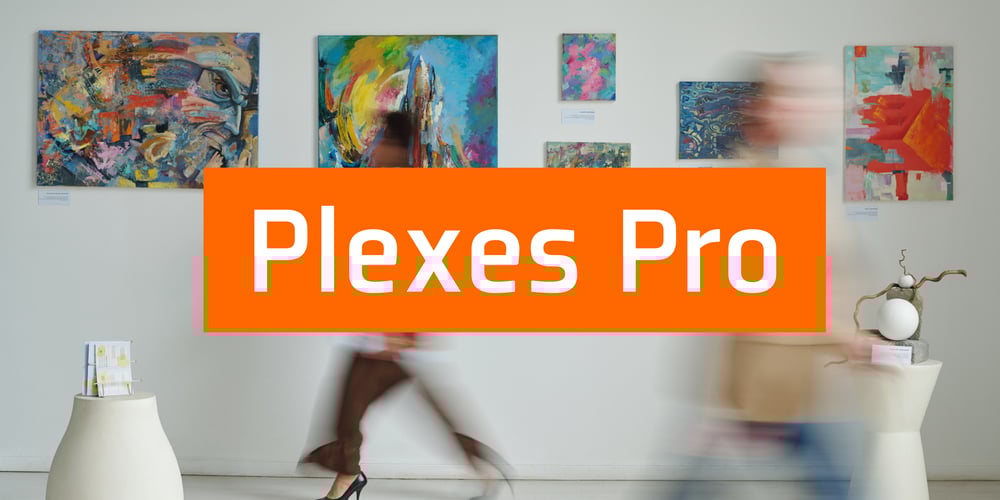
Plexes Pro Font Family was designed by Dino dos Santos and published by Monotype. Plexes Pro contains 8 styles and family package options. First designed in 2003, Plexes now becomes PlexesPro, an OpenType font available in four weights with italics. Includes plenty of features like small caps, alternates, ligatures, swashes and Greek.